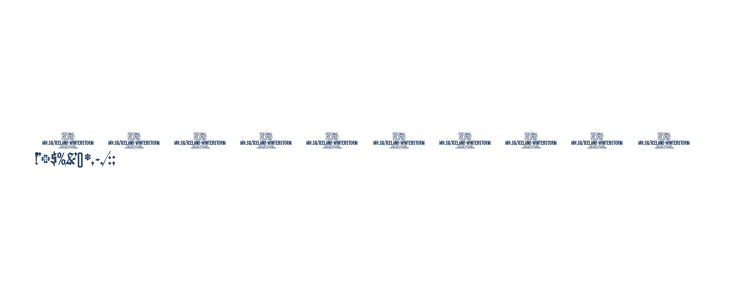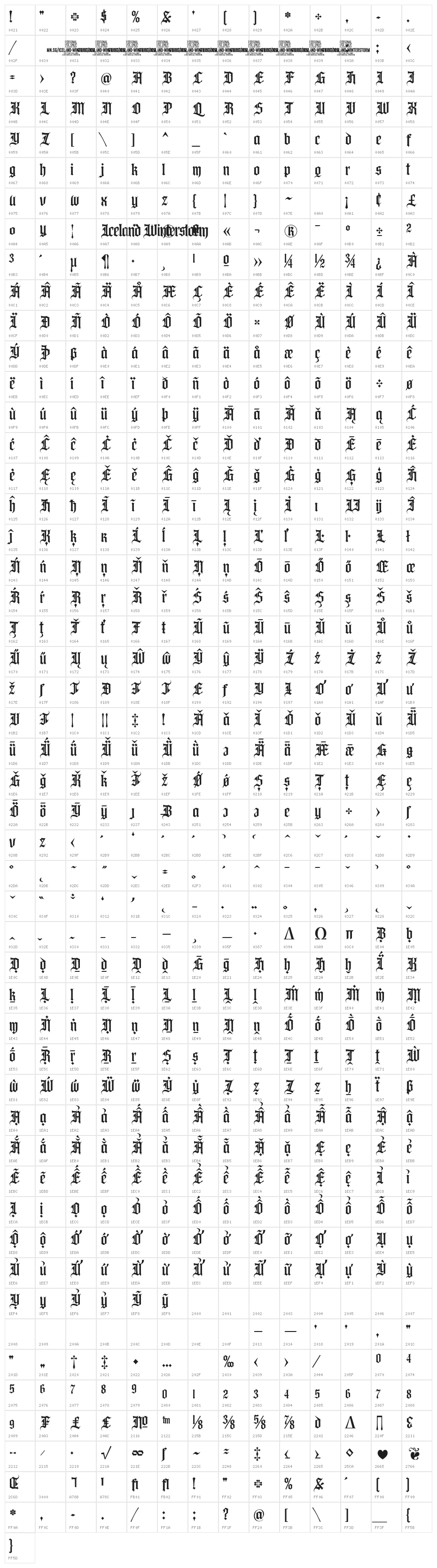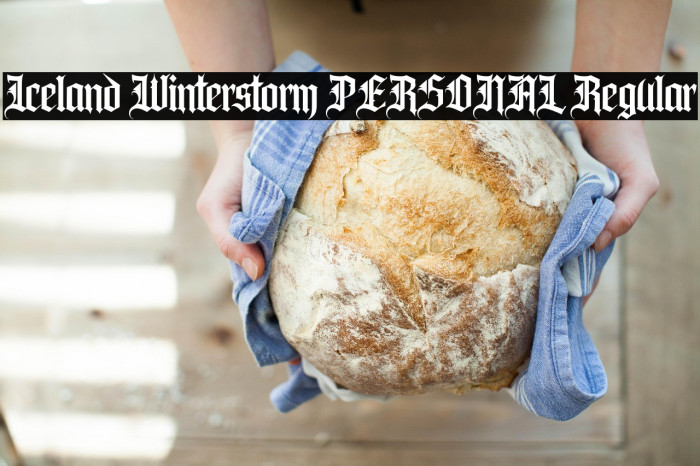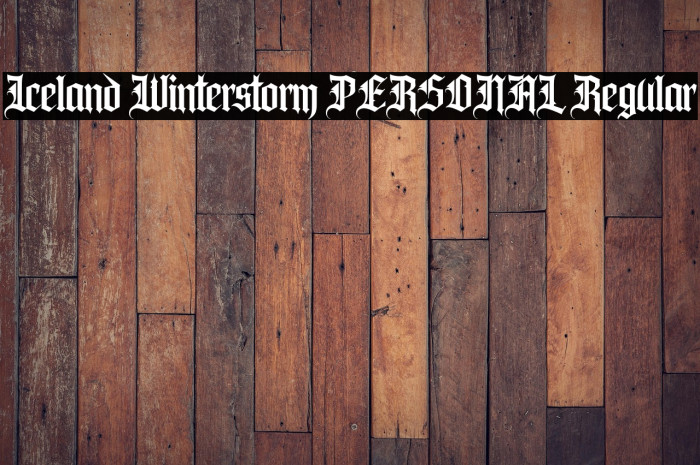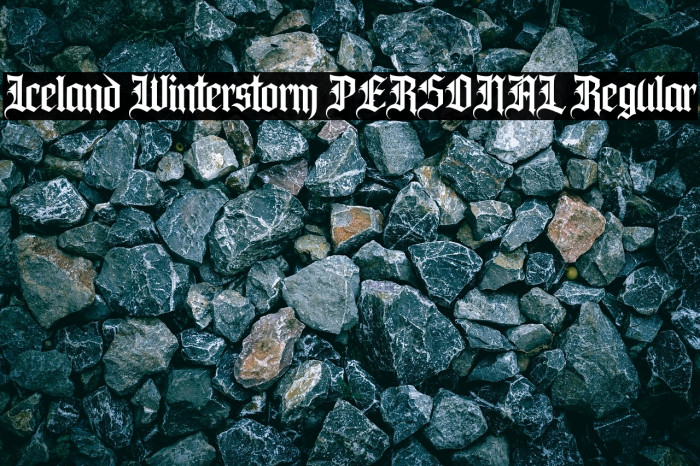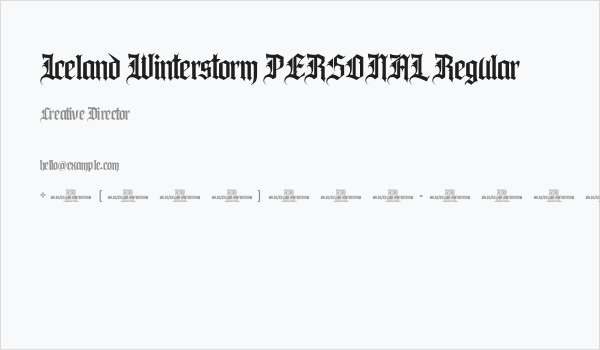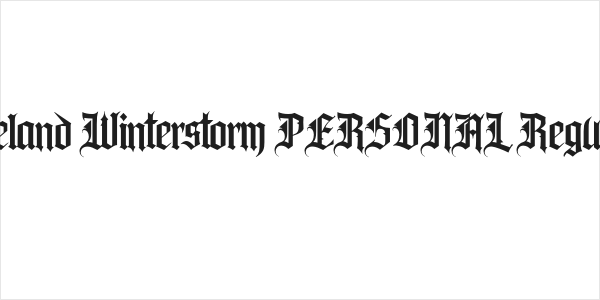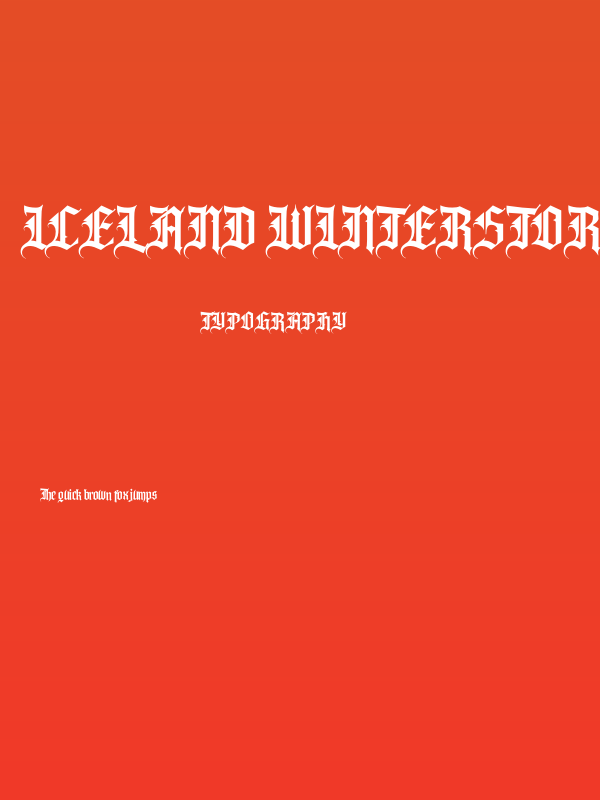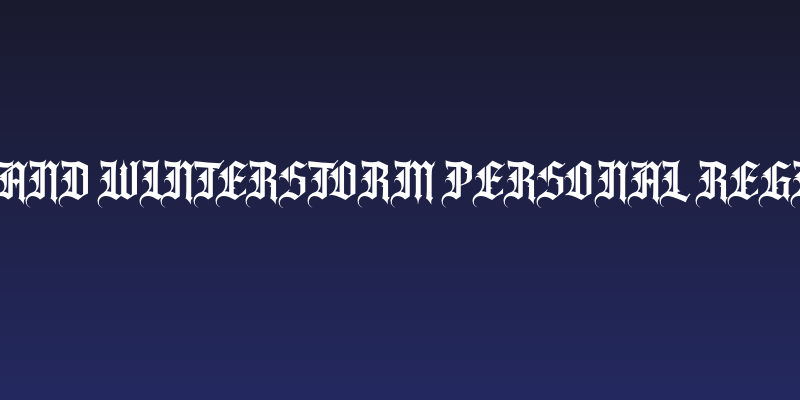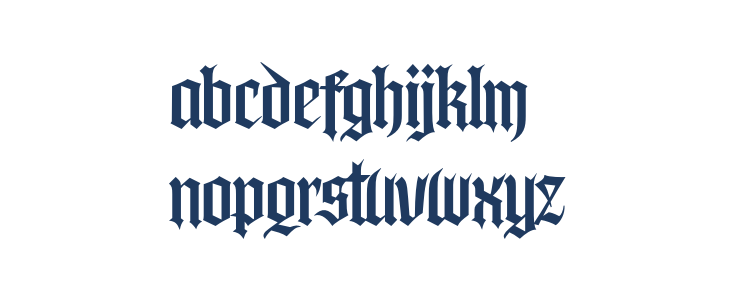
Iceland Winterstorm PERSONAL Regular Font
Iceland Winterstorm PERSONAL Regular Description
This font features a bold and dramatic style reminiscent of traditional blackletter typefaces. The characters are intricately designed with sharp angles and pointed serifs, giving them a gothic and medieval appearance. The uppercase letters are particularly ornate, with elaborate flourishes that enhance their visual impact. The lowercase letters maintain the same angular style, providing a cohesive look across the typeface. The numerals and special characters are equally stylized, ensuring consistency throughout. This font is ideal for projects that require a historical or fantasy aesthetic, offering a striking and memorable visual presence.
| Overall Style | Gothic, Medieval |
| Use Case | Logos, Posters, Decorative text |
| Proposed Projects | Suitable for fantasy book covers, historical event posters, and gothic-themed branding. |